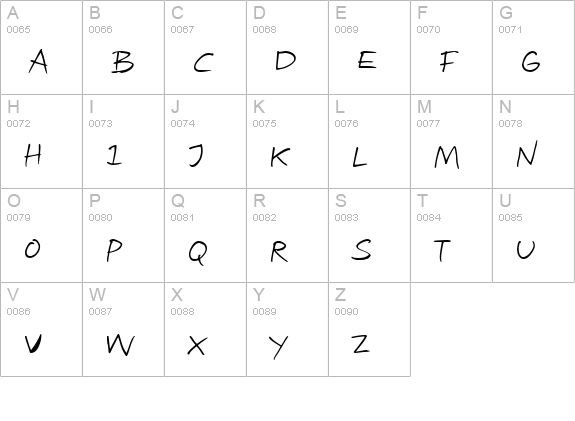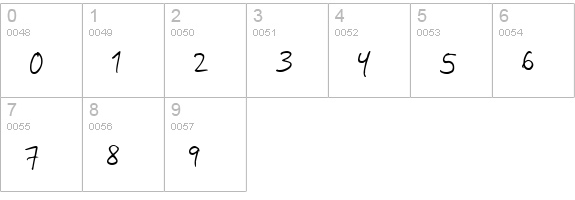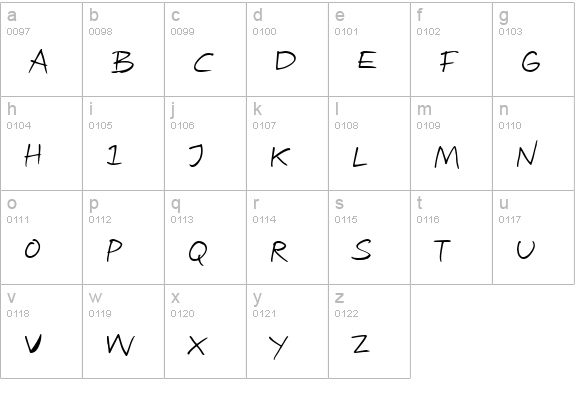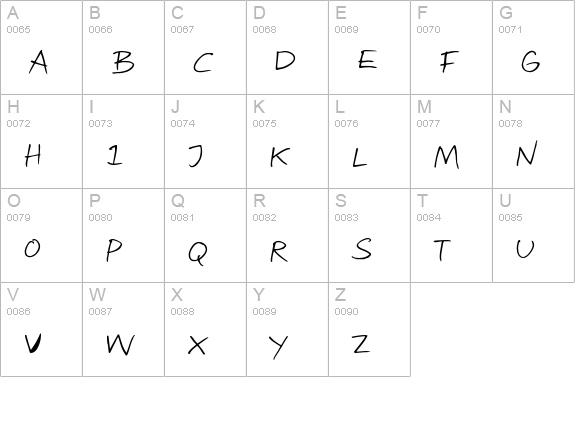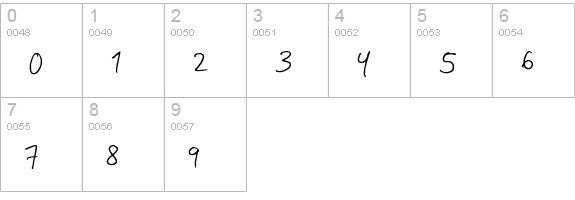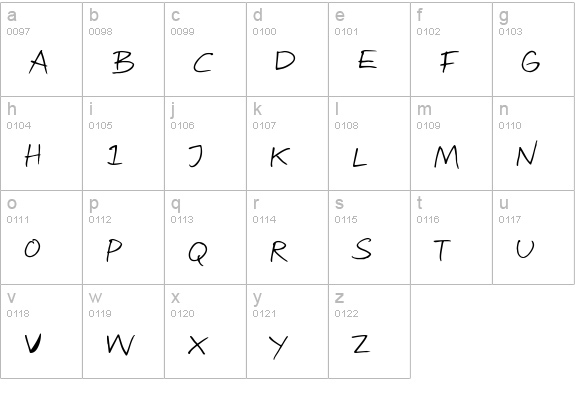
Attract more women Font Details
Introducing the captivating and alluring "Attract more women" font, designed to make a powerful statement with its elegant curves and stylish flair. This font exudes sophistication and charm, perfect for adding a touch of femininity to your designs. With its captivating appeal, "Attract more women" is sure to draw attention and leave a lasting impression. And the best part? This stunning font is available for free download exclusively at FontsMarket.com. Embrace the beauty and allure of "Attract more women" font in your projects and let its charm work its magic. Elevate your designs with this unique and eye-catching typeface that is sure to attract more than just women's attention. Download it now and make a bold statement with every letter you type.